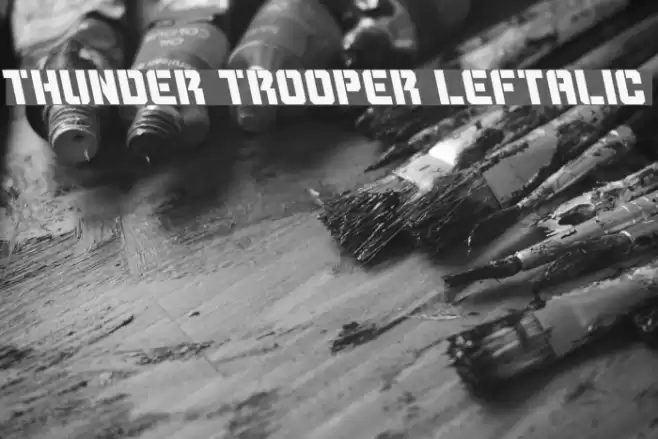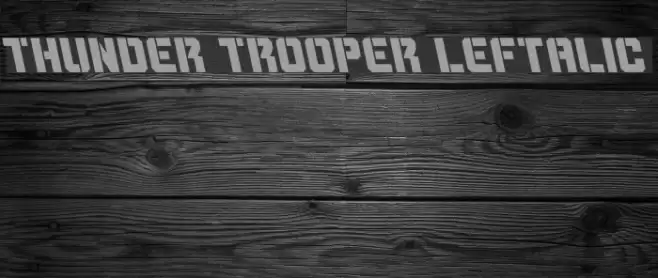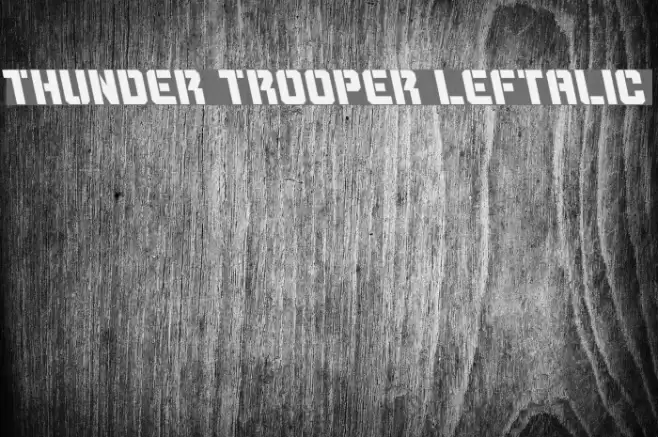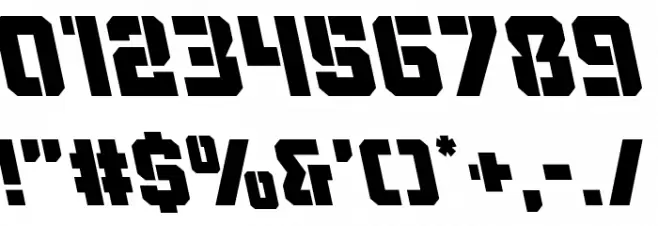
Thunder Trooper Leftalic Font
Thunder Trooper Leftalic Description
This font features a bold, angular design with a futuristic and industrial feel. The characters are heavily stylized with sharp edges and a blocky structure, giving them a strong and commanding presence. The uppercase and lowercase letters maintain a consistent geometric style, while the numbers and special characters complement the overall aesthetic. The font's unique slant adds a dynamic and energetic quality, making it stand out in any design. Its bold weight and distinctive appearance make it suitable for attention-grabbing headlines and impactful logos.
A bold, angular font with a futuristic and industrial design from Uncategorized fonts.
- Proposed Projects: Ideal for sci-fi themed posters, video game titles, and branding for tech companies.
- Overall Style: Futuristic